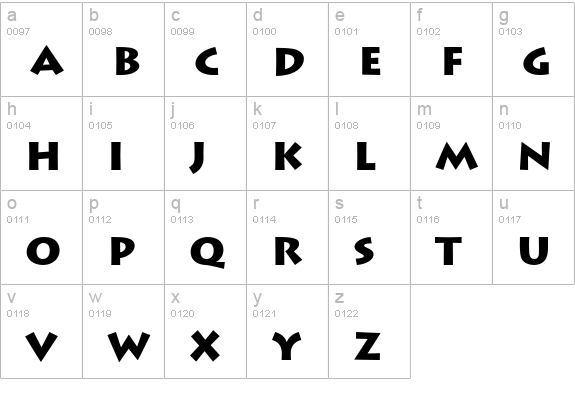
Lithograph Bold Font Details
Lithograph Bold is a strong, high-contrast variant in the Lithograph typeface family \xE2\x80\x94 well suited to headlines, attention-grabbing titles, and strong calls-to-action.
Lithograph Bold is a striking and versatile font that exudes confidence and modernity. With its bold and impactful design, this typeface is perfect for making a bold statement in your projects. Whether you are designing a poster, logo, or website, Lithograph Bold will ensure that your message stands out. The best part? Lithograph Bold is available for free download at FontsMarket.com. This means you can easily access this stylish font and elevate your designs without breaking the bank. Don't miss out on the opportunity to add Lithograph Bold to your font collection today and take your projects to the next level.